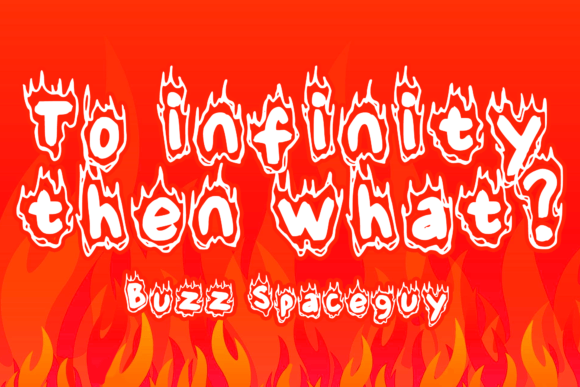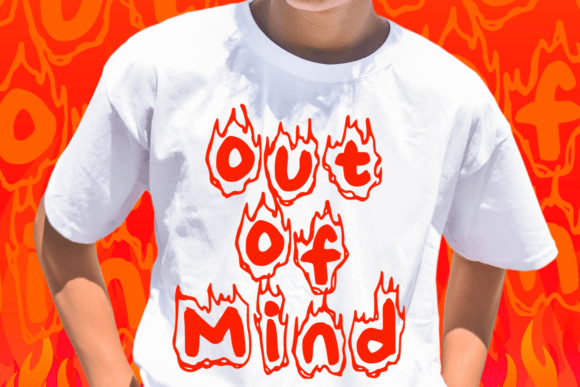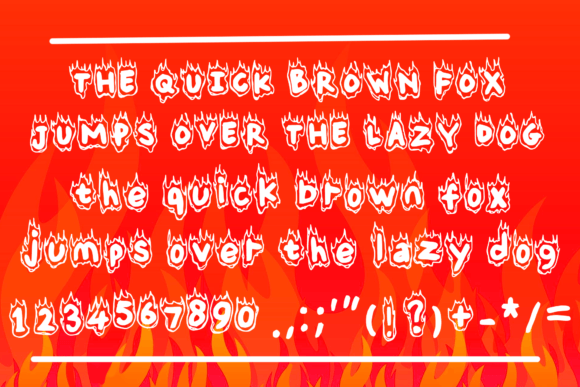
Introduction to Cute Fire Font
Have you ever been in the middle of a creative project, pouring your heart and soul into a design, and suddenly you’re stuck? You need that perfect element to take it from good to great, but nothing seems quite right. That’s where Cute Fire Font comes in – a delightful display font that adds a playful touch to any design. With its fire decorative twist, this font is sure to ignite your creativity and bring a smile to your face.
Cute Fire Font is more than just a design resource; it’s a valuable tool for designers looking to add a high-quality, fun touch to their projects. Whether you’re working on a t-shirt design, a kid’s book, or a party invitation, this font is the perfect addition. And the best part? It’s available for free download, complete with a transparent background, making it easy to integrate into your design.
- Cute Fire Font’s unique characteristics include its playful, hand-drawn style and whimsical flames, adding a touch of warmth and personality to any design.
- Perfect for adding a creative twist to designs, logos, and branding materials, making it a valuable asset for designers and artists.
I recently came across the Cute Fire Font and I’m excited to share my honest review with you. As a designer, I’m always on the lookout for high-quality design resources to elevate my creative projects. And let me tell you, this font does not disappoint.
- What works well: ✨ The font’s cute and playful design is perfect for kids’ projects, party invitations, and even social media graphics.
As for limitations, I would say that the font may not be suitable for all types of projects. For example, it may not be the best choice for professional or formal projects where a more serious font is needed.
Overall, I’m really impressed with the Cute Fire Font and would highly recommend it to anyone looking for a fun and playful font for their creative projects. It’s a great addition to any designer’s toolkit and is sure to add some personality to your designs.
Cute Fire Font is perfect for:
1. Designing children’s products, such as stickers and coloring books.
2. Creating social media graphics and ads.
3. Developing branding and marketing materials for businesses.